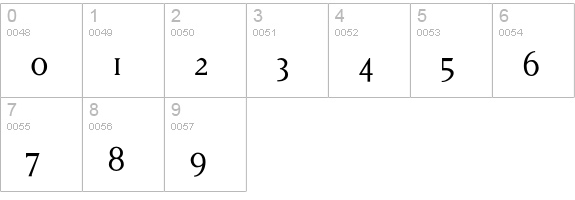
MatrixBookOldstyle Font Details
MatrixBookOldstyle is a classic and elegant serif font that exudes sophistication and timelessness. Its refined design features delicate serifs and balanced proportions, making it perfect for projects that require a touch of tradition and style. The timeless appeal of MatrixBookOldstyle makes it suitable for a wide range of applications, from formal invitations to editorial layouts. What sets MatrixBookOldstyle apart is not only its timeless design but also the fact that it is available for free download at FontsMarket.com. This means that you can access this high-quality font without any cost, making it a valuable addition to your font library. Whether you are working on a professional project or a personal creative endeavor, MatrixBookOldstyle is sure to elevate your designs with its classic charm and versatility. Download it today and add a touch of elegance to your next project.